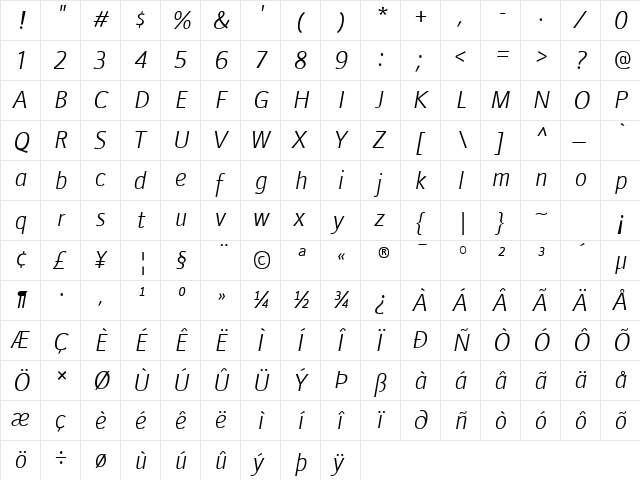
Doradani Light Italic
Design Context for Doradani Typeface
Doradani offers clean, dependable letterforms without strong stylistic allegiance, making it a practical choice for designers who need flexibility. The dynamic lean of this cut emphasises speed and emphasis in any layout. The delicate stroke weight brings airiness and refinement to layouts.